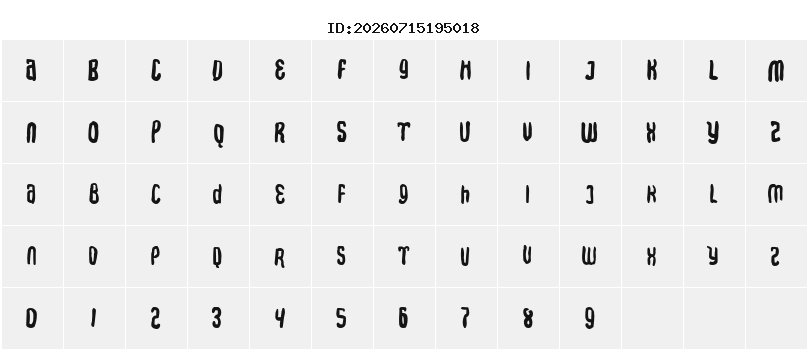
Avatar Drawn Preview
• Font Name: Avatar Drawn
• Full Font Name: Avatar Drawn
About Avatar Drawn.ttf
Avatar Drawn.ttf is a modern, elegant sans-serif font designed for ultimate readability and visual harmony. Perfect for branding, headlines, web design, and print materials.